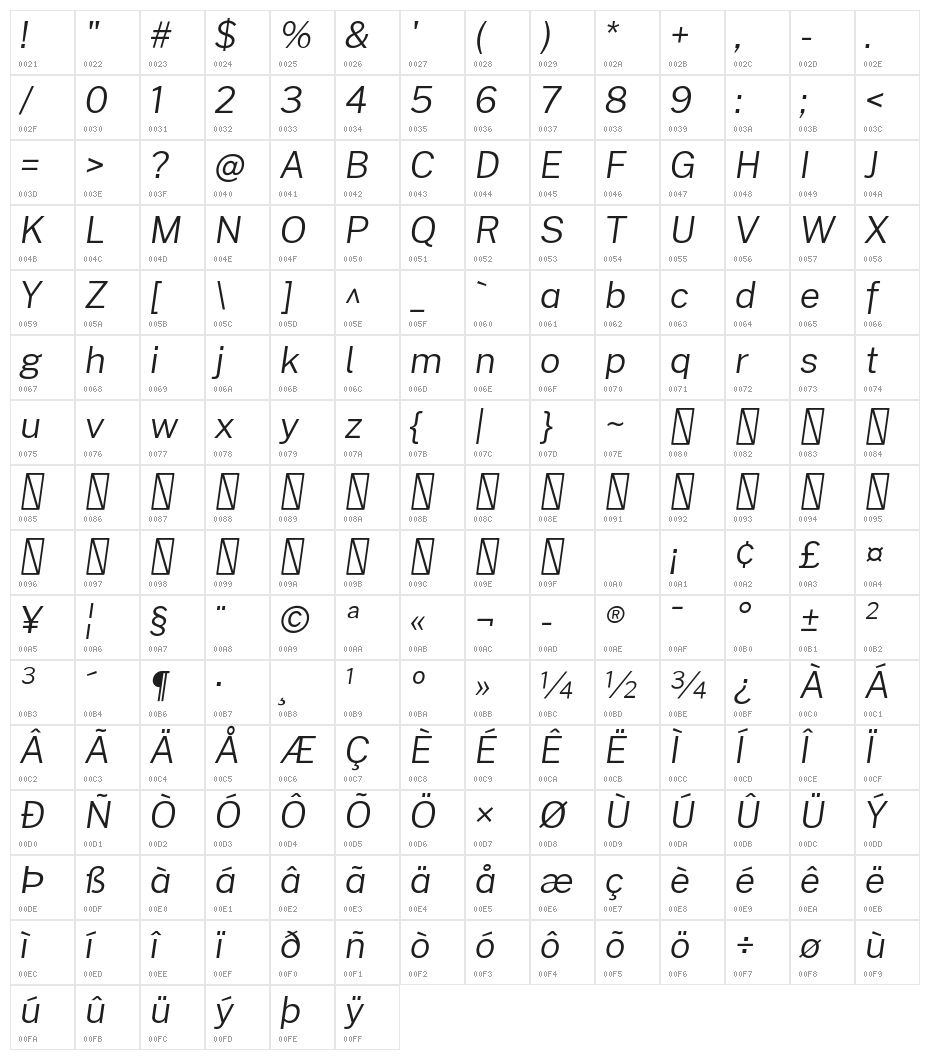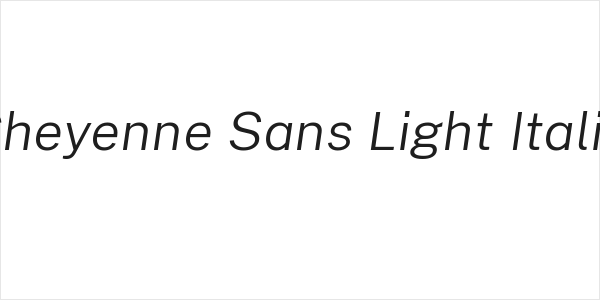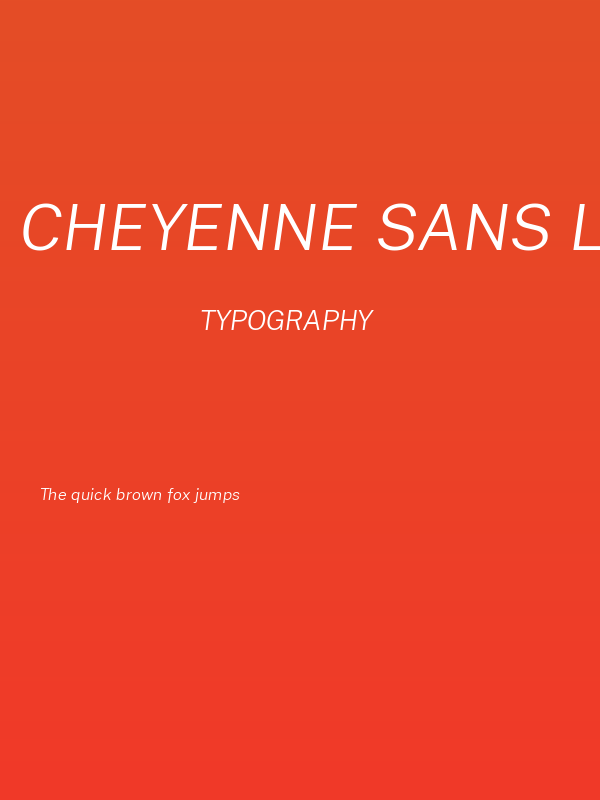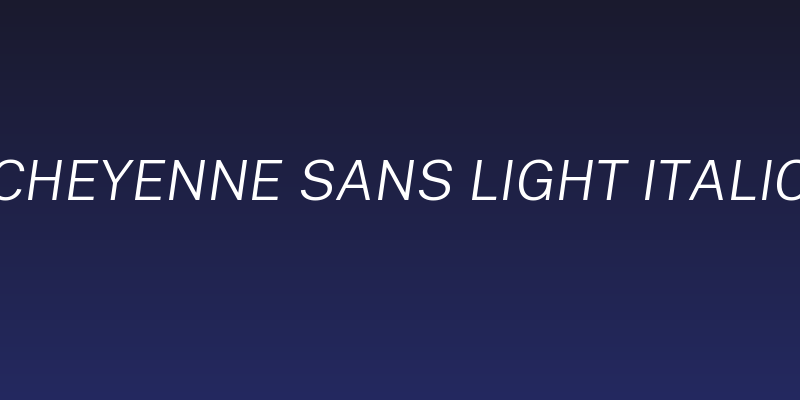
Cheyenne Sans Light Italic Font
Cheyenne Sans Light Italic Description
This font presents a sleek and modern sans-serif style with a light weight and italicized form. The characters are elegantly slanted, providing a sense of motion and fluidity. The clean lines and minimalistic design make it highly readable, while the light weight adds a touch of sophistication. The spacing between characters is normal, ensuring clarity and legibility. The font's low contrast in stroke thickness contributes to its contemporary and understated appearance, making it versatile for various design applications.
Proposed ProjectsIdeal for modern branding projects, elegant website headers, stylish editorial layouts, and minimalist logo designs.